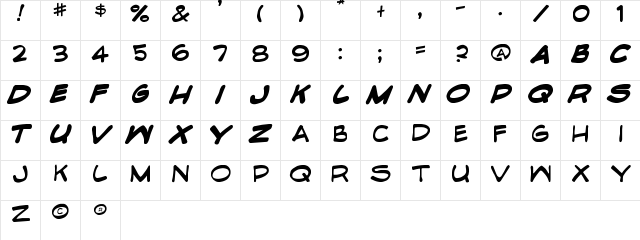
Edible Pet II Regular
Complete Edible Pet II Regular glyph index. Displaying only characters natively supported by Edible Pet II Regular font.
Design Context for Edible Pet II
Edible Pet II is a composed and adaptable typeface that performs quietly and consistently across a wide range of design contexts.